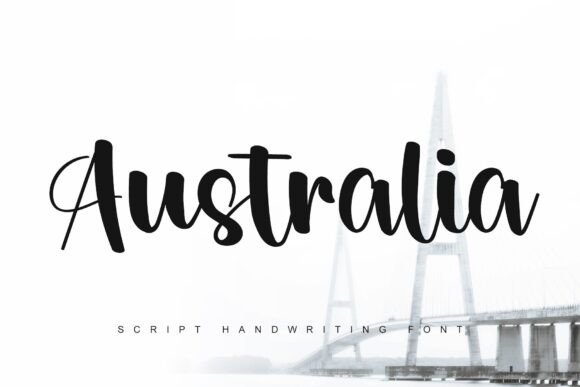
Australia Font: Elevate Your Designs with Elegance and Sophistication
Are you a designer or crafter looking for a font that exudes elegance and sophistication? Look no further than the Australia Font. This beautifully crafted handwriting font is the perfect blend of classic and modern, making it an ideal choice for those who want to add a touch of class and personality to their designs.
The Unique Characteristics of Australia Font
The Australia Font is a handwriting font that boasts flowing strokes and well-balanced curves, creating a sophisticated yet approachable feel. Its elegant design makes it perfect for a wide range of design projects, from wedding invitations and branding materials to social media graphics and digital art. The font’s unique characteristics include:
- Flowing Strokes: The Australia Font features smooth, flowing strokes that give it a natural and effortless look.
- Well-Balanced Curves: The font’s curves are carefully crafted to create a sense of balance and harmony, making it easy to read and visually appealing.
- Elegant Design: The Australia Font has an unmistakable elegance that sets it apart from other handwriting fonts, making it perfect for designs that require a touch of sophistication.
Why Choose Australia Font for Your Designs?
There are many reasons why designers and crafters choose the Australia Font for their projects. Here are just a few:
- Versatility: The Australia Font is versatile and can be used for a wide range of design projects, from formal to informal.
- Unique and Creative: The Australia Font has a unique and creative feel that sets it apart from other fonts, making it perfect for designers who want to add a touch of personality to their designs.
How to Use Australia Font in Your Designs
Using the Australia Font in your designs is easy. Here are a few tips to get you started:
- Pair it with Other Fonts: The Australia Font pairs well with other fonts, making it easy to create a unique and visually appealing design.
- Experiment with Colors: The font looks great in a variety of colors, so don’t be afraid to experiment and find the perfect color for your design.
- Use it for Headings and Titles: The Australia Font is perfect for headings and titles, making it easy to add a touch of elegance and sophistication to your designs.
Tips and Tricks for Getting the Most Out of Australia Font
Here are a few tips and tricks for getting the most out of the Australia Font:
- Use it for Wedding Invitations: The Australia Font is perfect for wedding invitations, making it easy to create a beautiful and elegant design.
- Use it for Branding Materials: The font is also great for branding materials, such as business cards and letterheads, making it easy to create a professional and sophisticated look.
- Experiment with Different Sizes: The Australia Font looks great in a variety of sizes, so don’t be afraid to experiment and find the perfect size for your design.
In conclusion, the Australia Font is a beautifully crafted handwriting font that blends elegance with a modern, artistic touch. Its flowing strokes and well-balanced curves create a sophisticated yet approachable feel, making it the perfect font choice for designers and crafters who want to add a touch of class and personality to their designs. With its versatility, ease of use, and unique characteristics, the Australia Font is sure to become a favorite among designers and crafters.